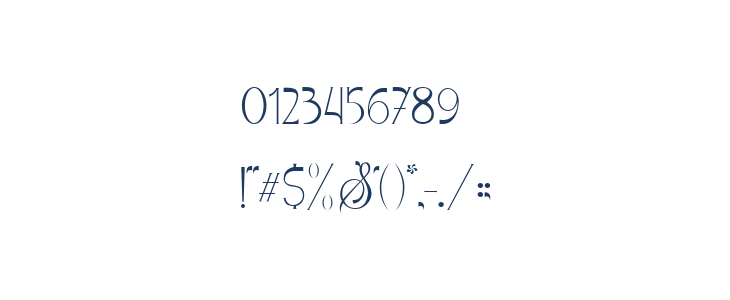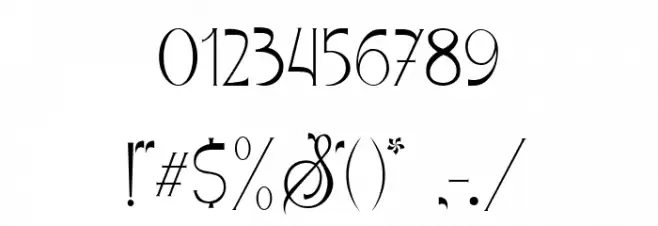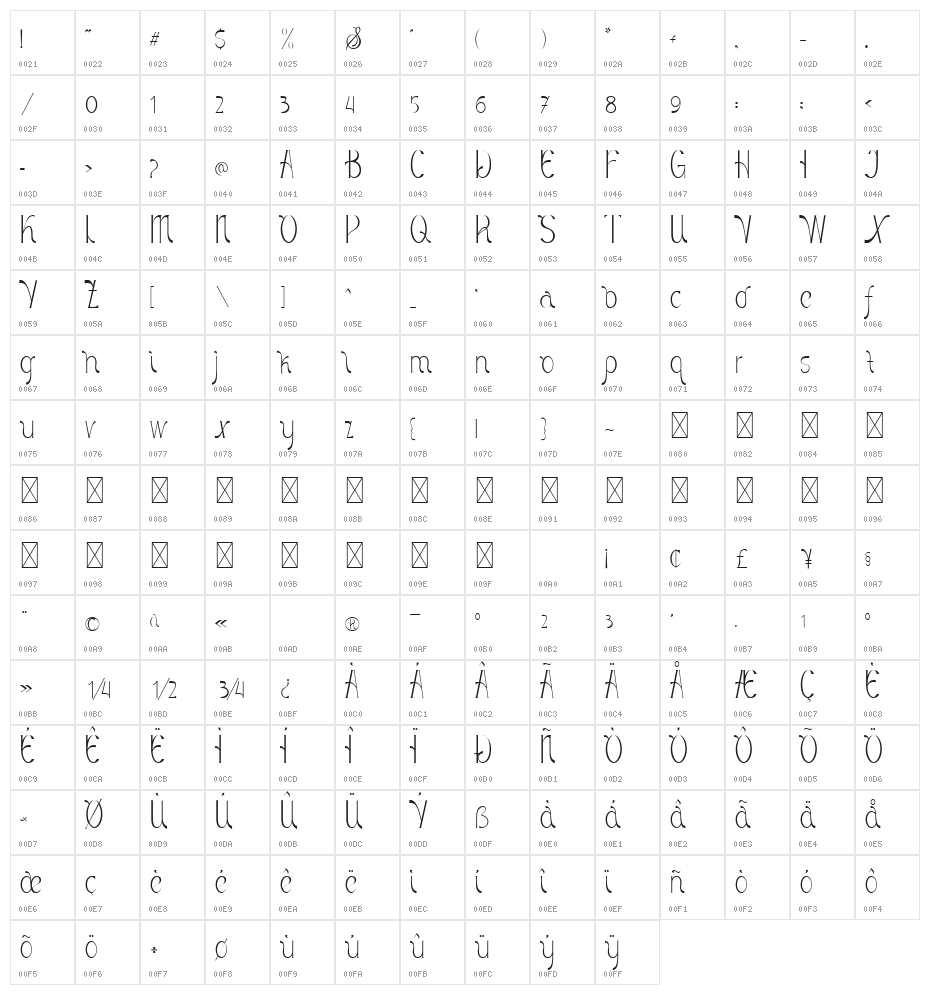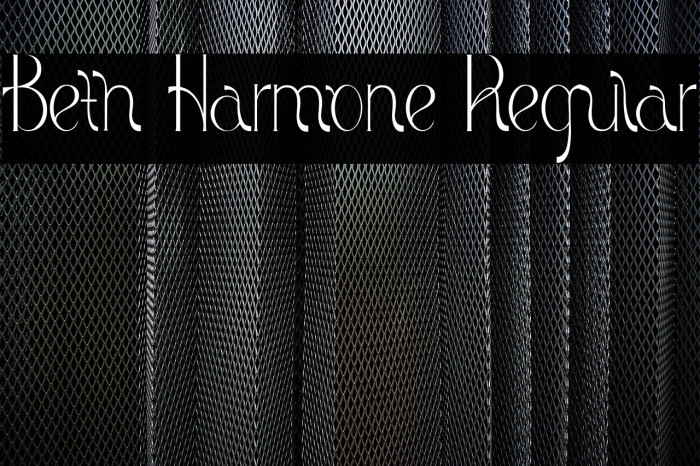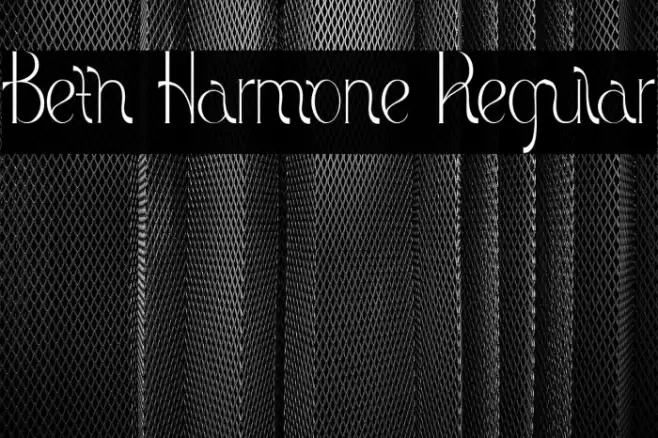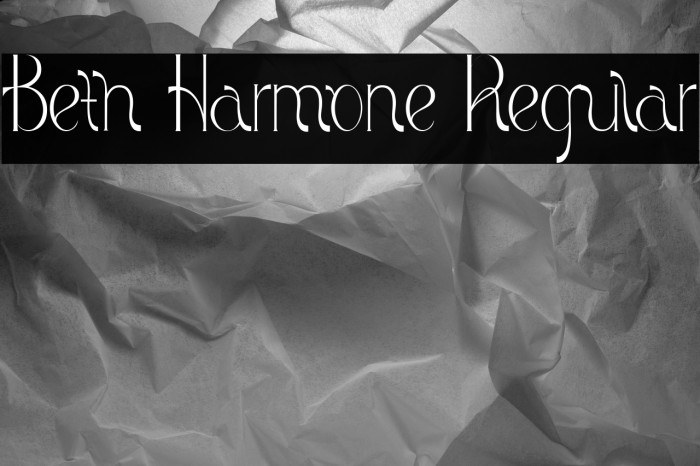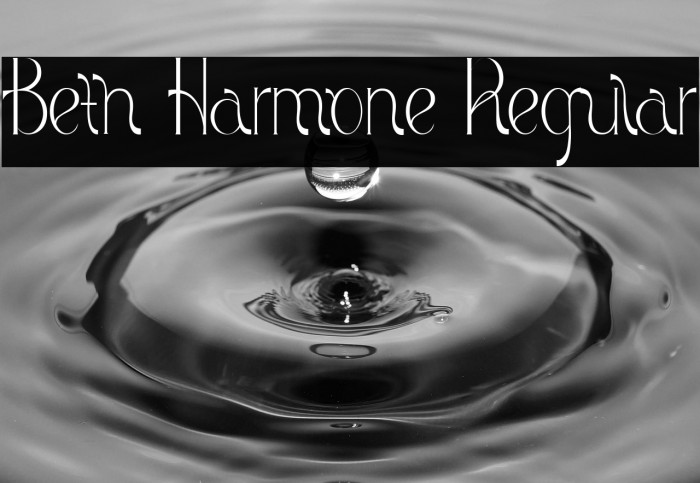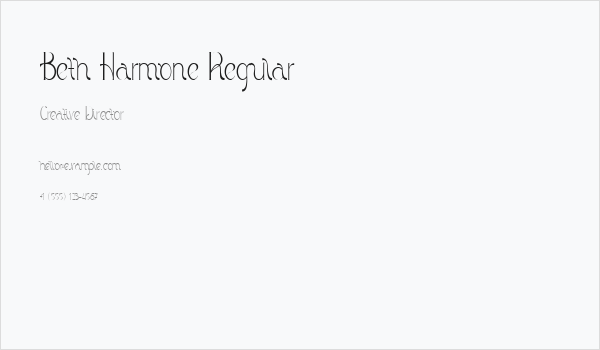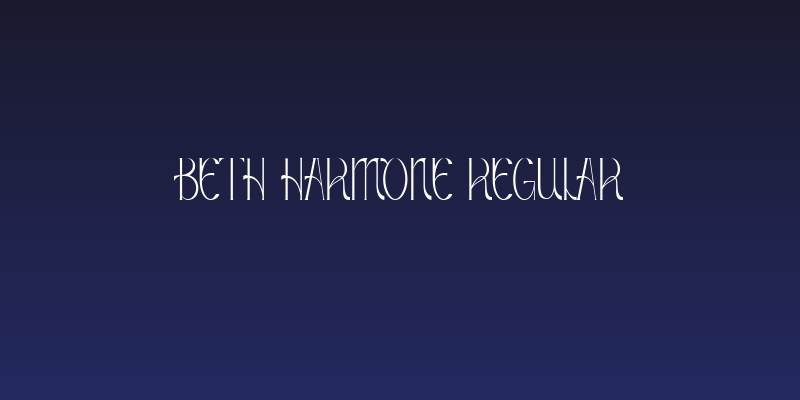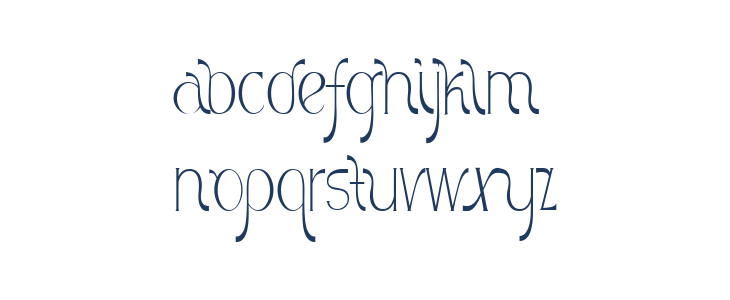
Beth Harmone Regular Font
Beth Harmone Regular Description
This font features a unique blend of modern and vintage styles, characterized by its elegant and elongated letterforms. The uppercase letters exhibit a sophisticated flair with distinct curves and sharp edges, while the lowercase letters maintain a consistent flow with a slightly whimsical touch. The numerals are designed with a similar aesthetic, ensuring a cohesive look throughout. Special characters are crafted with attention to detail, adding to the font's overall charm. This typeface stands out due to its artistic and decorative elements, making it suitable for creative and expressive projects.
| Overall Style | Modern, Vintage |
| Use Case | Logos, Invitations, Editorial design |
| Proposed Projects | Ideal for branding, logos, invitations, and editorial design where a touch of elegance and creativity is desired. |